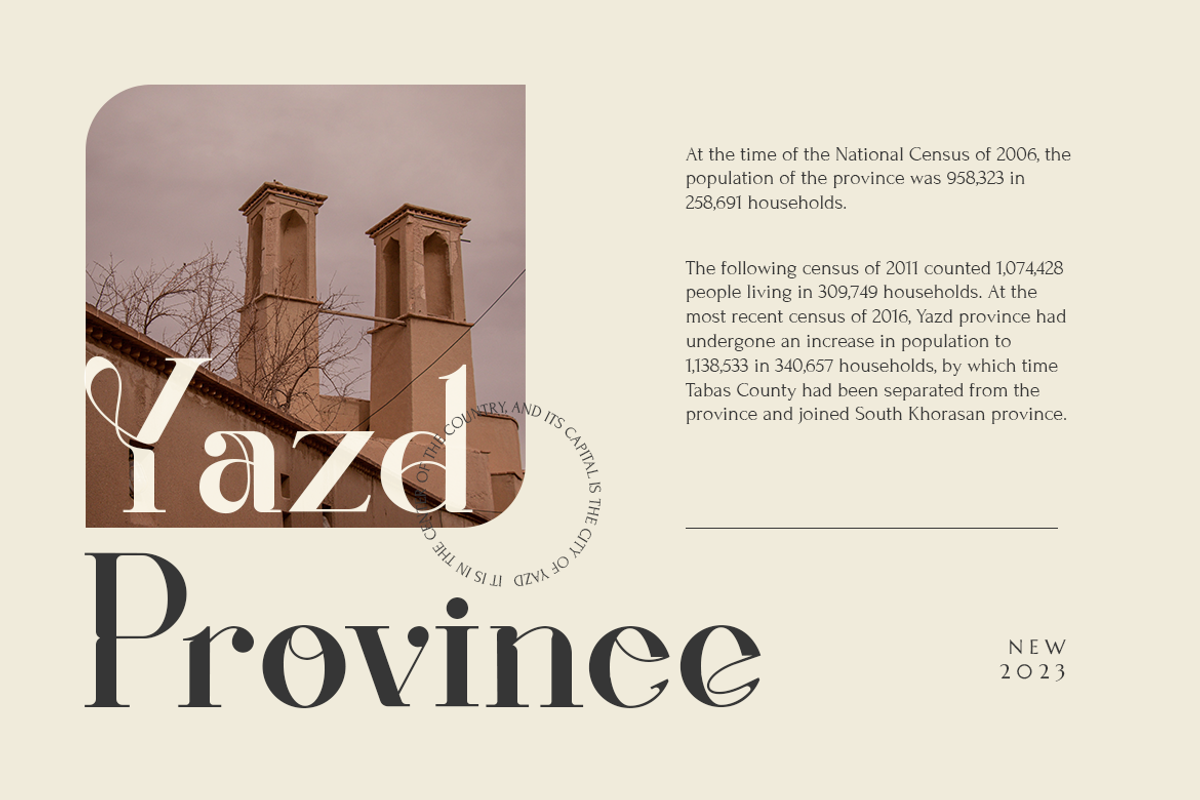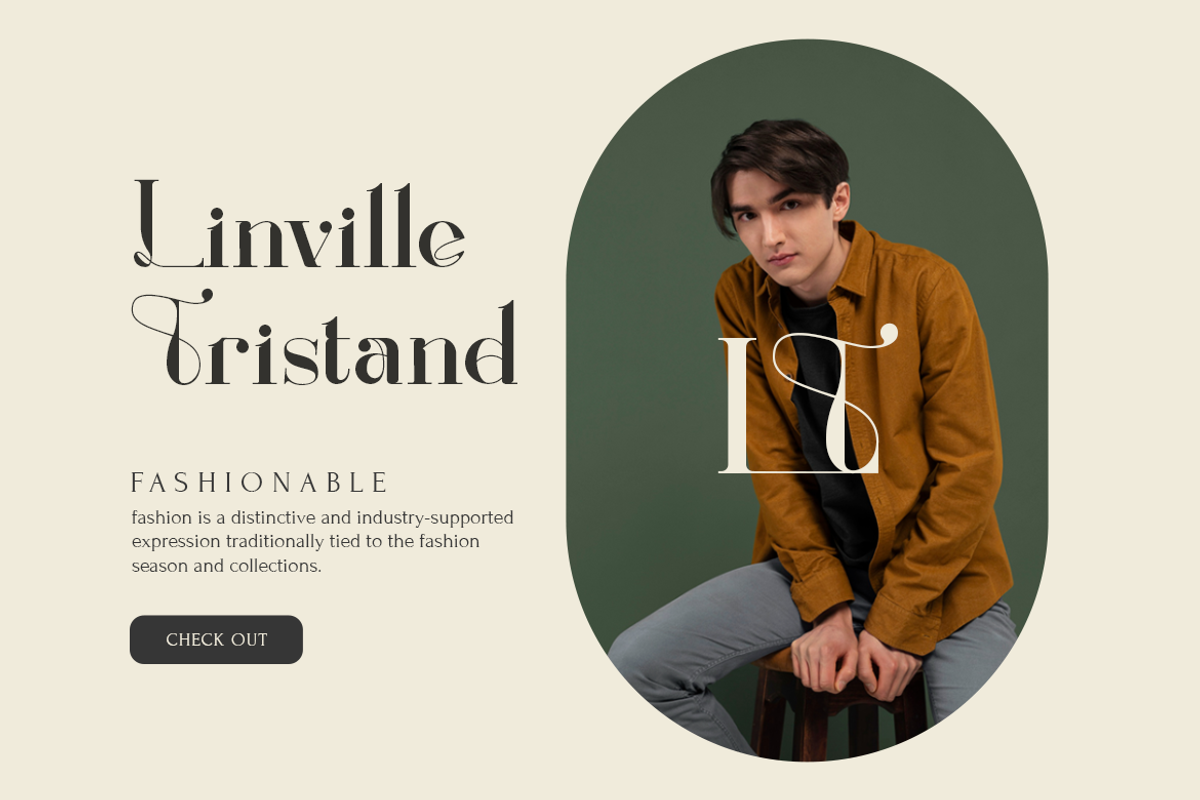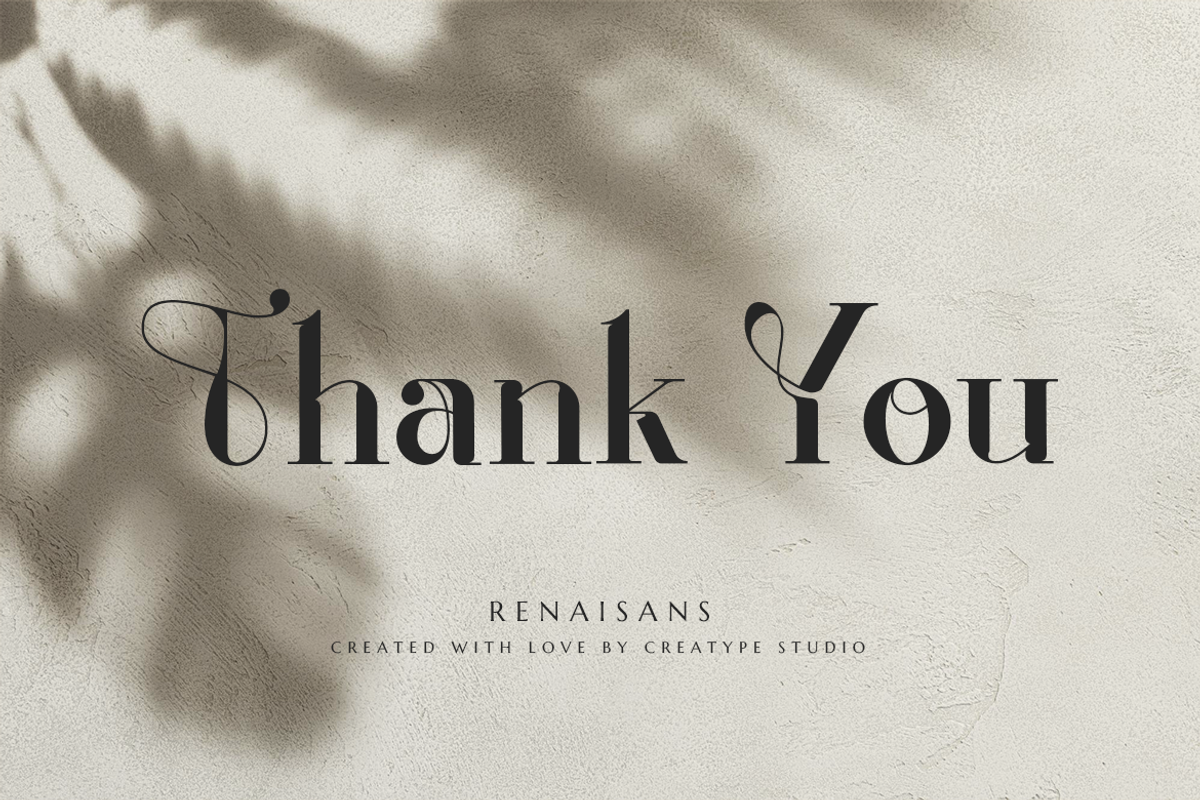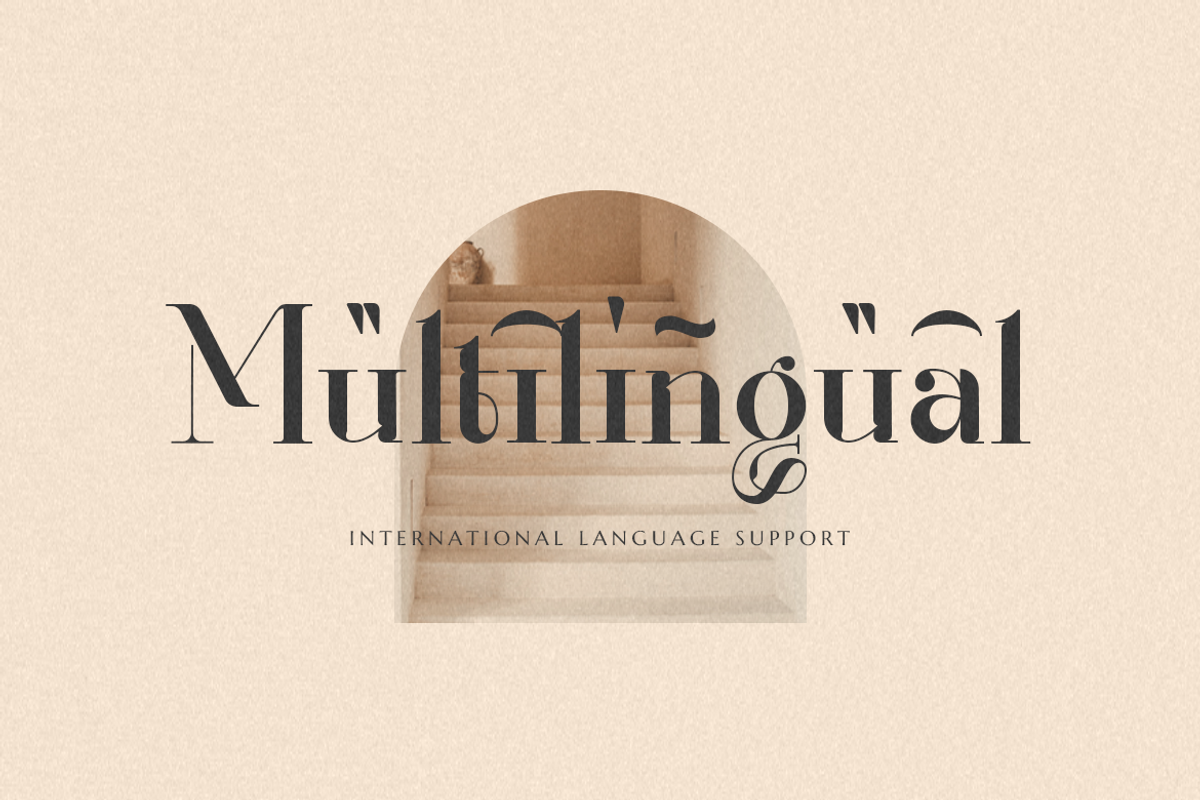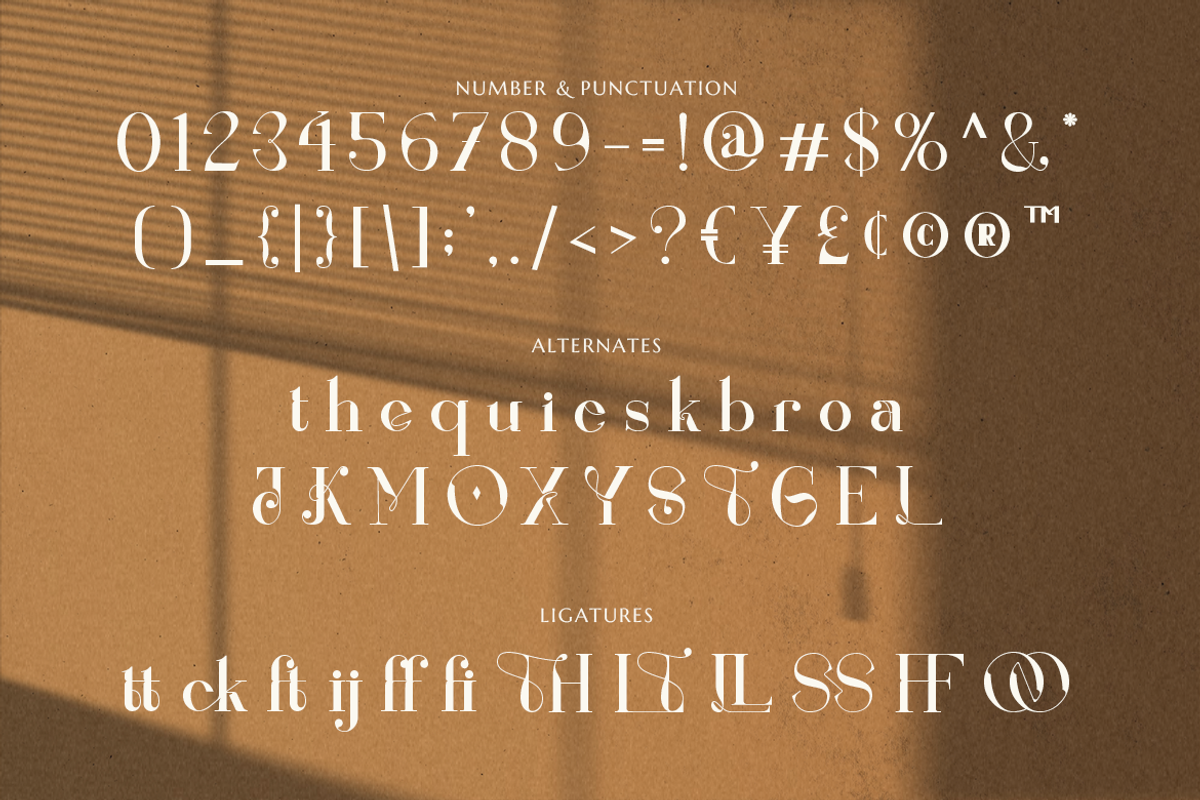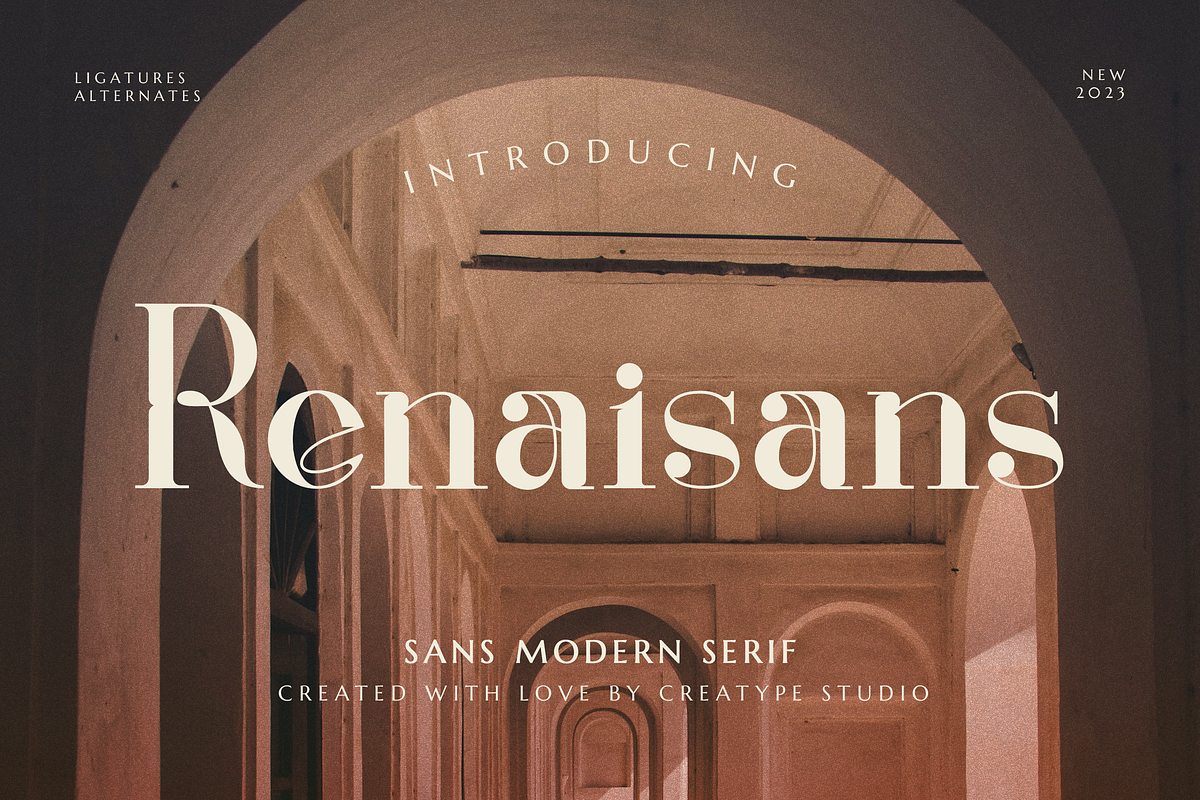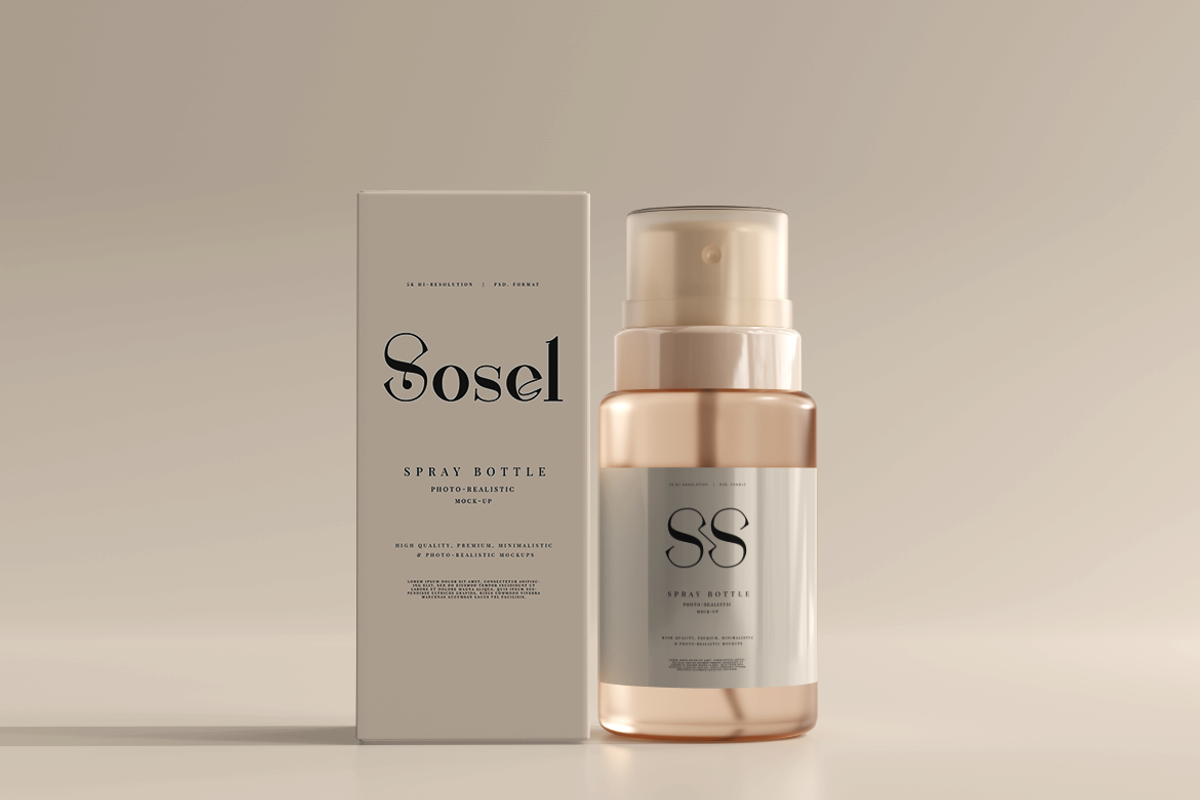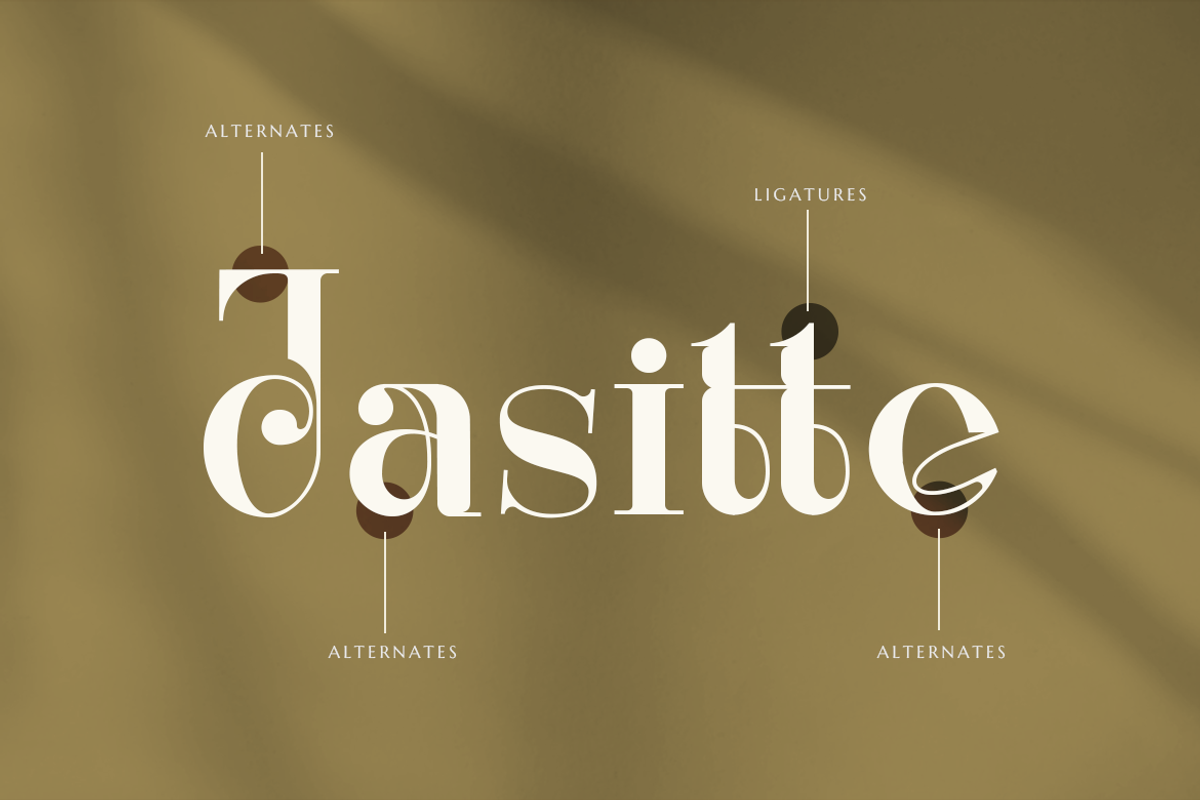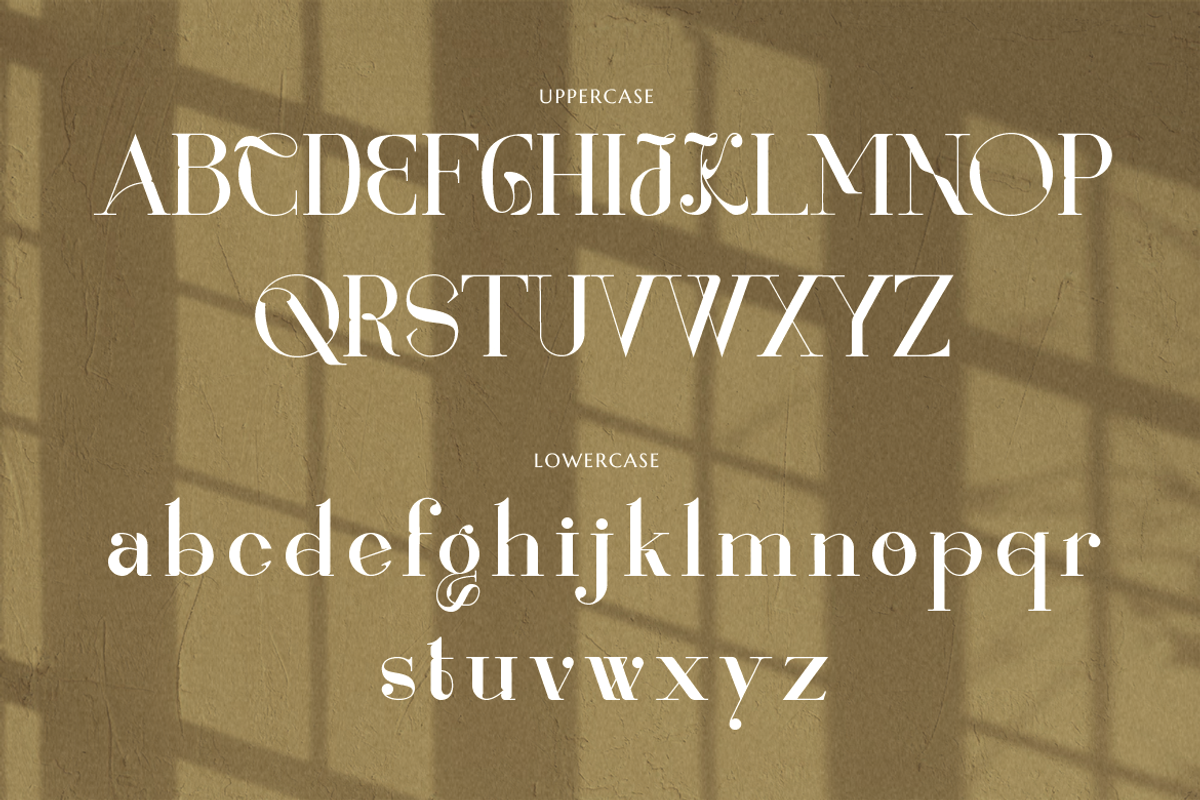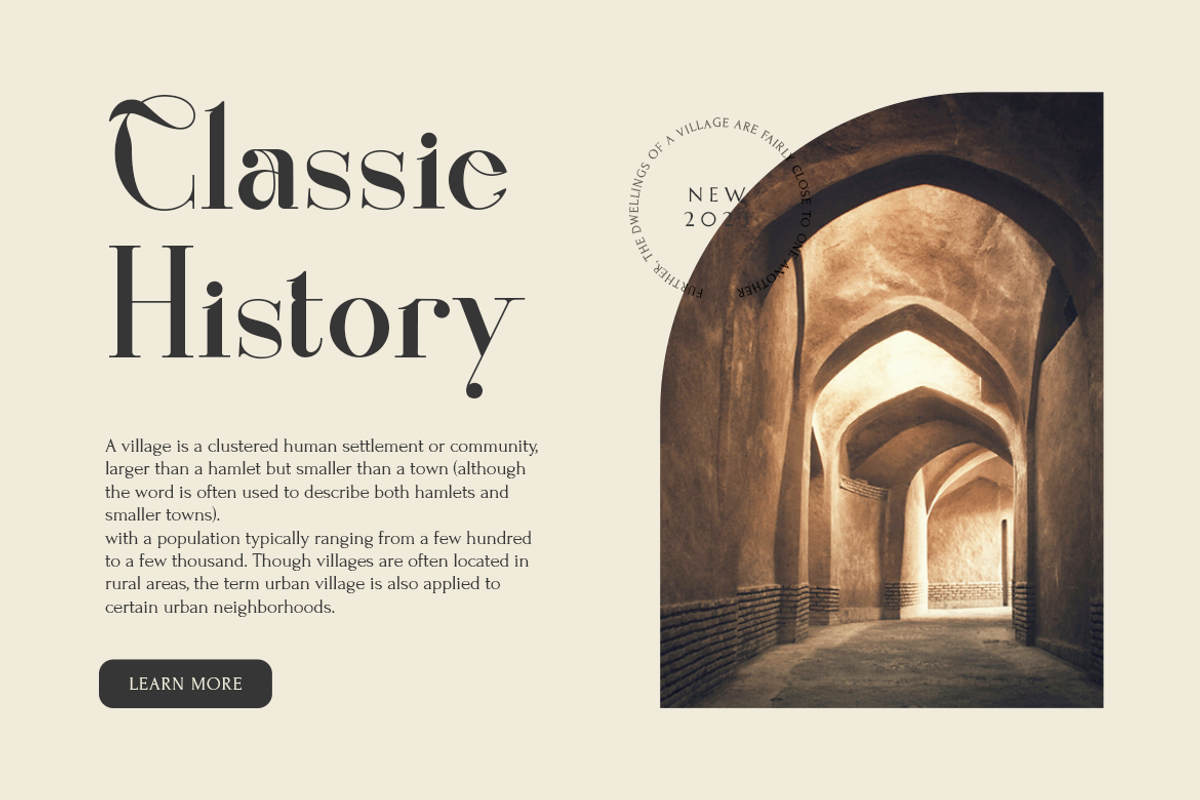
Renaisans Sans Modern Serif
Renaisans, an eye-catchy typeface that’s bold and curvy. This kind of typeface will give a dramatic look but still have a unique look.
Renaisans is perfect for branding projects, logo, wedding designs, social media posts, advertisements, product packaging, product designs, label, photography, watermark, invitation, stationery and any projects that need handwriting taste.
- Ligature & Alternate